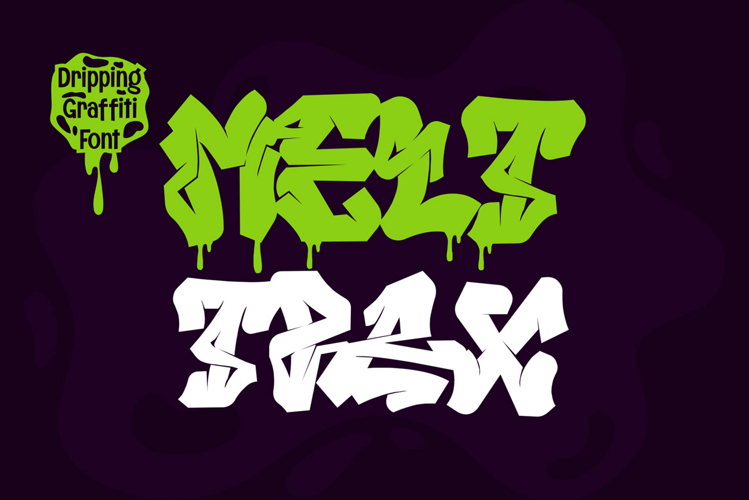
Melttrax is a bold and expressive dripping graffiti font designed to make your message melt into the scene—literally. With sharp edges, oozing drips, and intense street-inspired energy, this Allcaps decorative font is perfect for titles that refuse to be ignored. Whether you're designing posters, digital art, horror intros, or game splash screens, Melttrax gives your visuals an unapologetically raw edge.
The Best Dripping Graffiti Font for Bold Digital Projects Looking for a graffiti display font that pushes boundaries? Melttrax is your perfect match. Every letter oozes intensity with dripping details that mimic wet paint on walls. This Allcaps graffiti typeface is built for impact—ideal for music covers, poster headlines, event flyers, and YouTube visuals. If your project needs that rebellious, urban voice, Melttrax delivers without compromise.
Multilingual Support Included Melttrax supports multilingual characters, making it an excellent choice for global creatives. Whether you're designing in English, Spanish, French, or other Latin-based languages, this graffiti-style display font adapts with full integrity.
What’s Inside the Font Pack? You’ll receive two powerful variations to boost your creative flexibility:
Both styles give you full control—use the clean base version or go full-on street with the dripping alternate. All files are ready for use in any design software, web platform, or print medium.
Key Features
- Allcaps Font with dripping graffiti style
- Comes with Drip & Clean versions
- Multilingual Support for global use
- Ideal for posters, digital covers, games, and horror themes
- Designed for creators who need maximum visual intensity
Why Designers Love Melttrax Designers choose Melttrax font when they want attitude. Its urban drip aesthetic, sharp Allcaps design, and versatile styling options make it a go-to for bold projects with creative edge. It’s not just a font—it’s a statement of rebellion, mood, and motion.